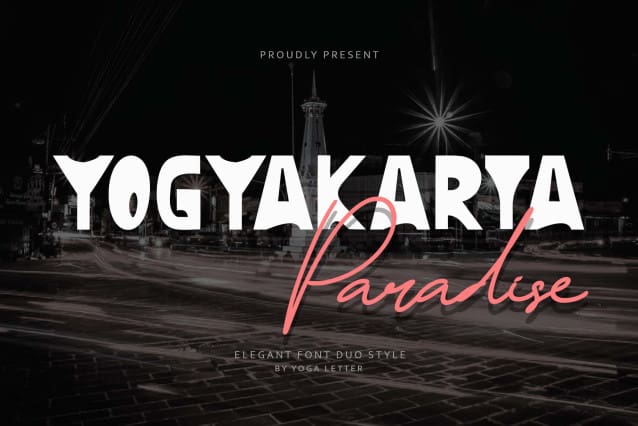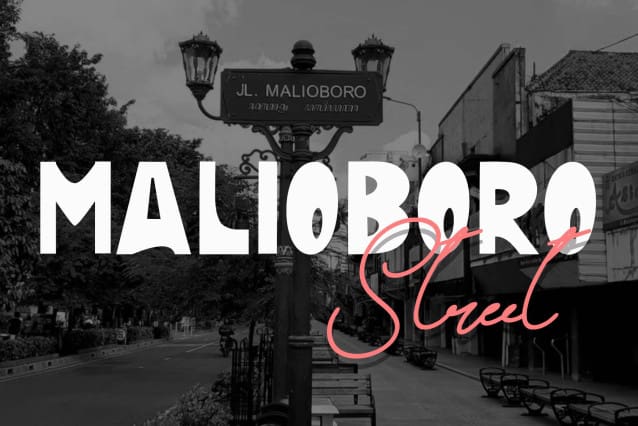
Yogyakarta Paradise Font
Yogyakarta Paradise Font is two fonts combined into one. This font consists of a display font consisting of uppercase letters, lowercase letters, numerals, punctuation, ligatures, and multilingual support, as well as a signature font consisting of uppercase letters, lowercase letters, numerals, punctuation, ligatures, and multilingual support. Very suitable for business branding, weddings, invitations, vacations, holidays, and others.